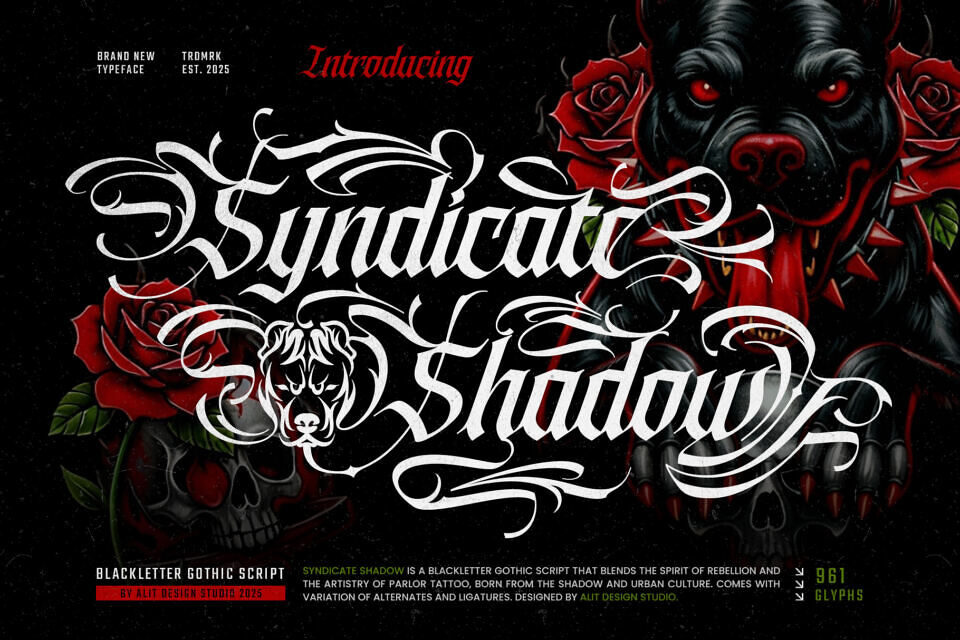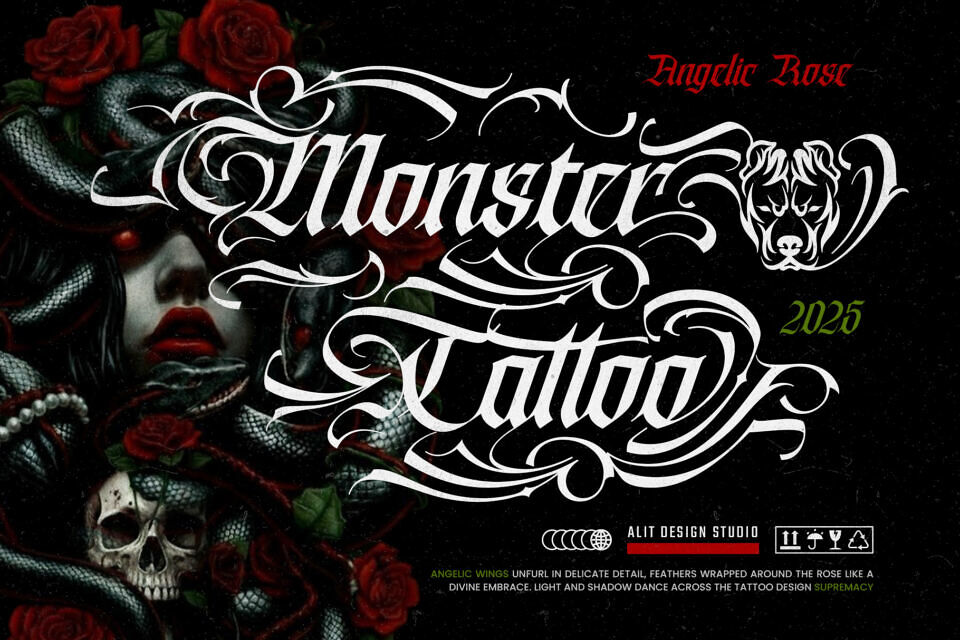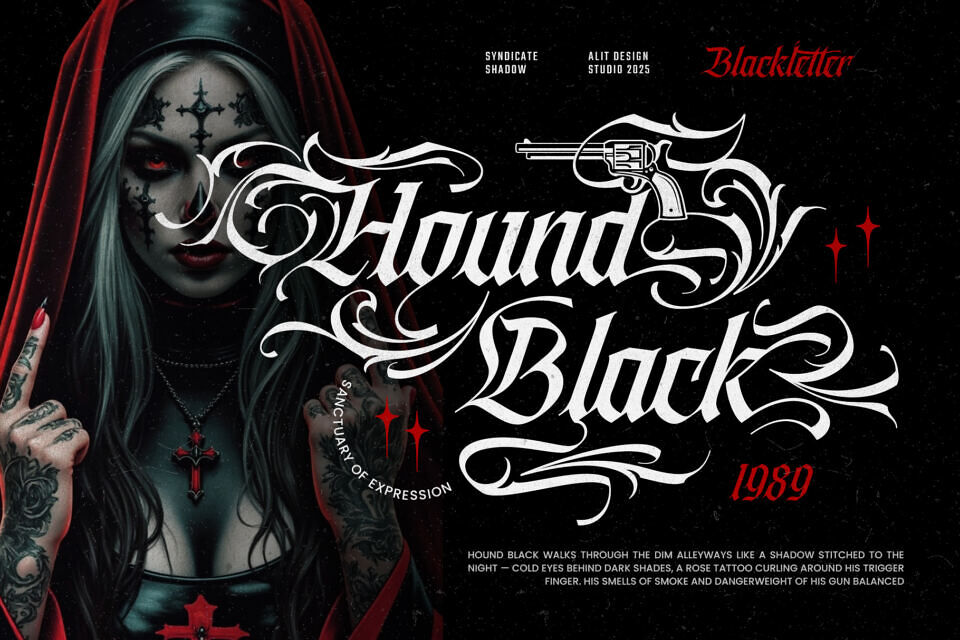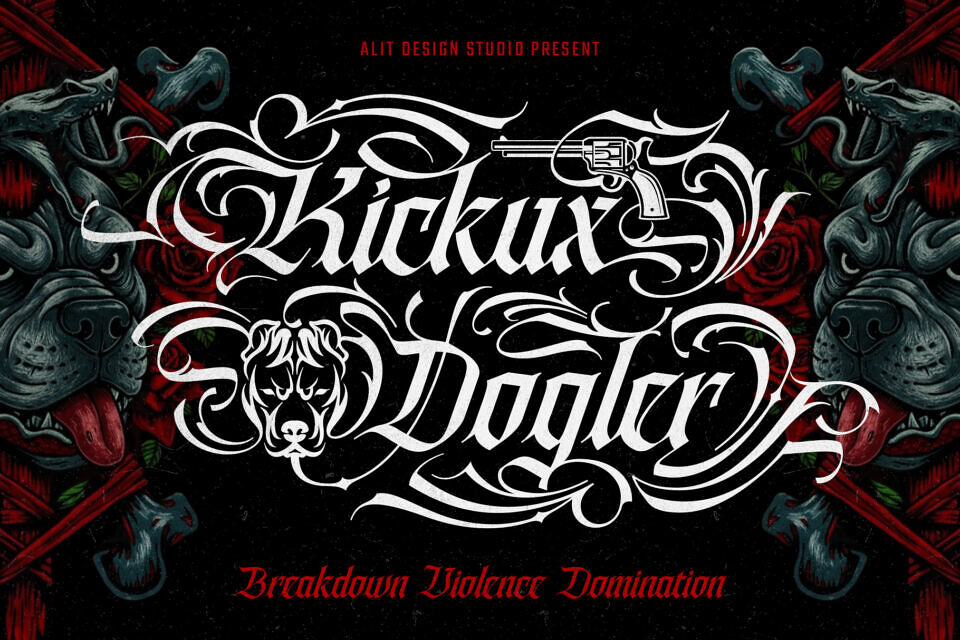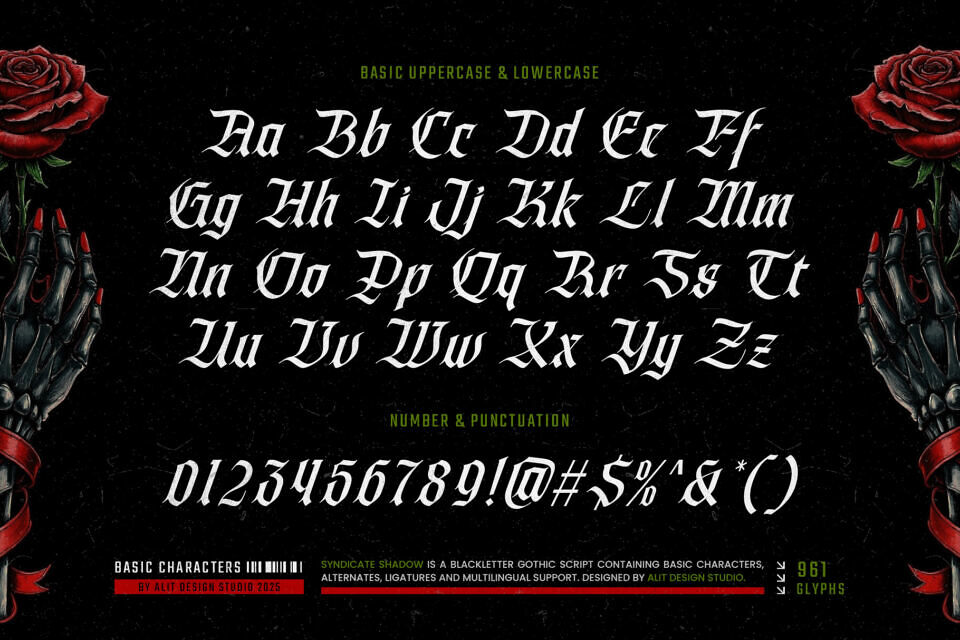
Step into the shadows. Syndicate Shadow is not just a font; it’s a declaration. Born from the raw, unfiltered energy of parlor tattoo art and the bold spirit of Chicano script, this Blackletter Gothic font bleeds rebellion and pure urban culture. It’s the brand of the street, a “Sanctuary of Expression” for the fearless.
Command your design with a massive arsenal of over 961 glyphs. Syndicate Shadow is loaded with stylistic alternates, ligatures, and elaborate swashes that give you unparalleled creative power. This font goes beyond simple letters—it provides icons of the lifestyle.